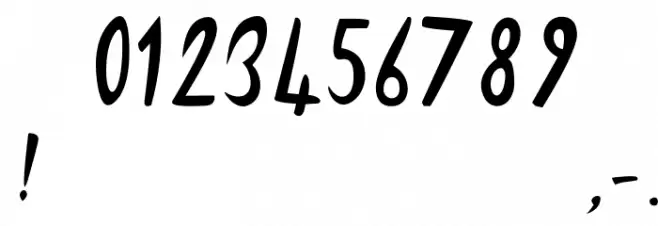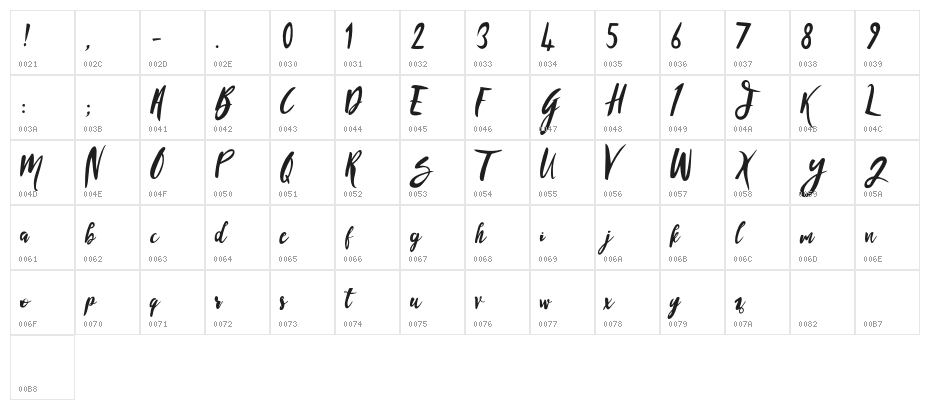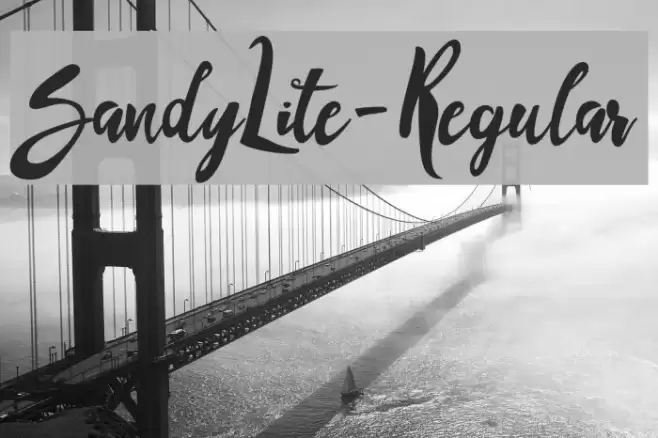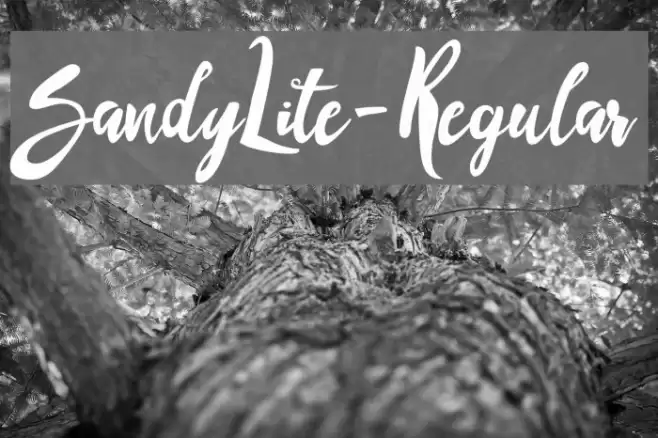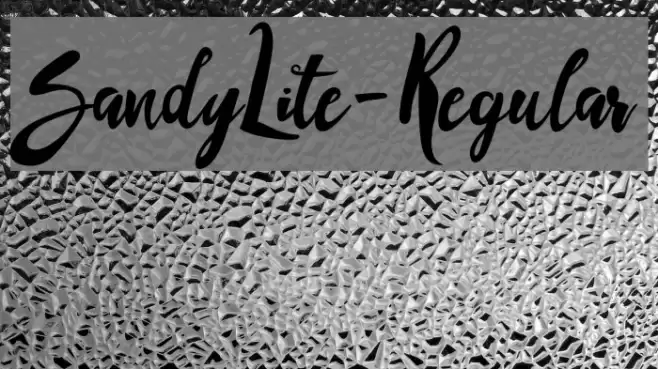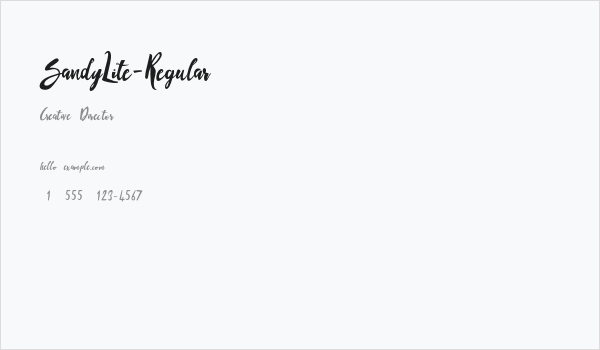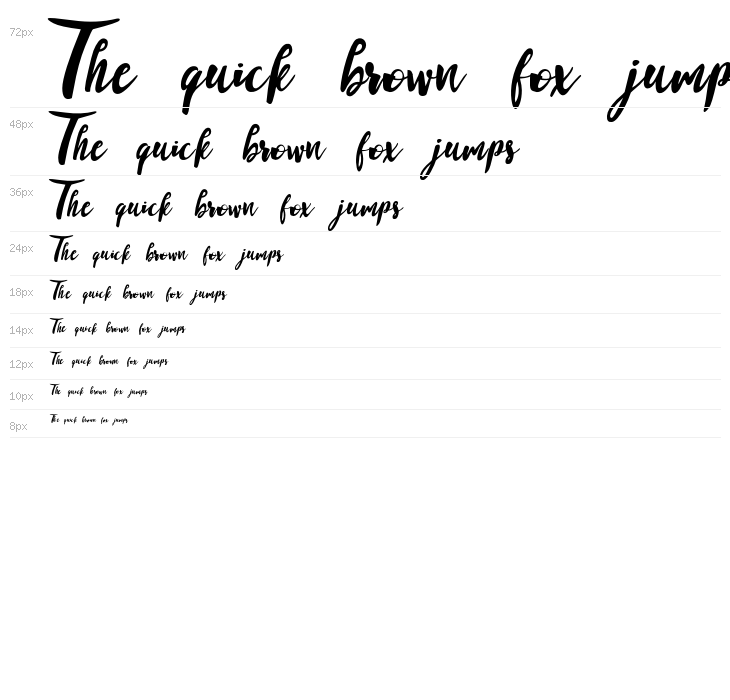
SandyLite-Regular Font
SandyLite-Regular Description
This font features a dynamic and expressive script style, characterized by its fluid and flowing letterforms. The uppercase letters are bold and slightly slanted, giving a sense of movement and energy. The lowercase letters maintain a consistent style, with elegant curves and a handwritten feel. The numerals are distinct and maintain the same lively character as the letters. Special characters are integrated seamlessly, enhancing the font's versatility. The overall design is both artistic and modern, making it suitable for creative projects that require a personal touch.
| Use Case | Logos, Invitations, Creative projects |
| Proposed Projects | Ideal for branding, invitations, greeting cards, and creative design projects that require a personal and artistic touch. |